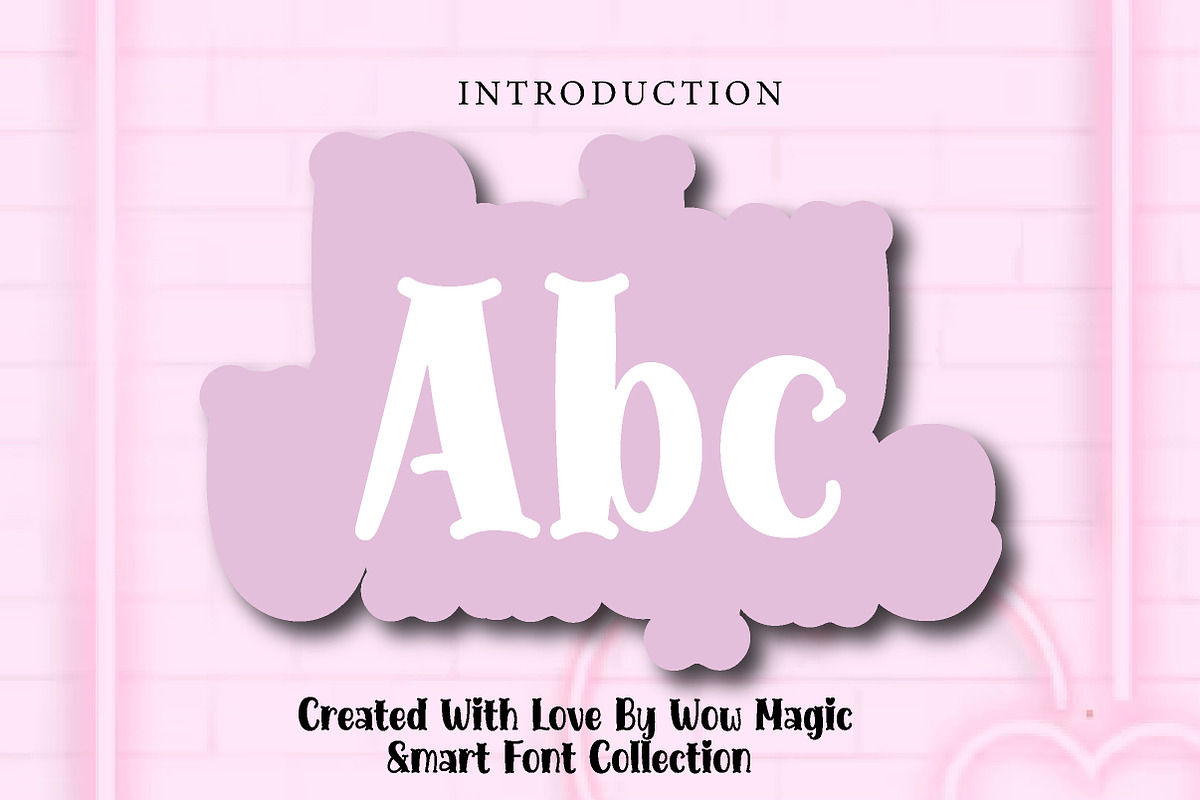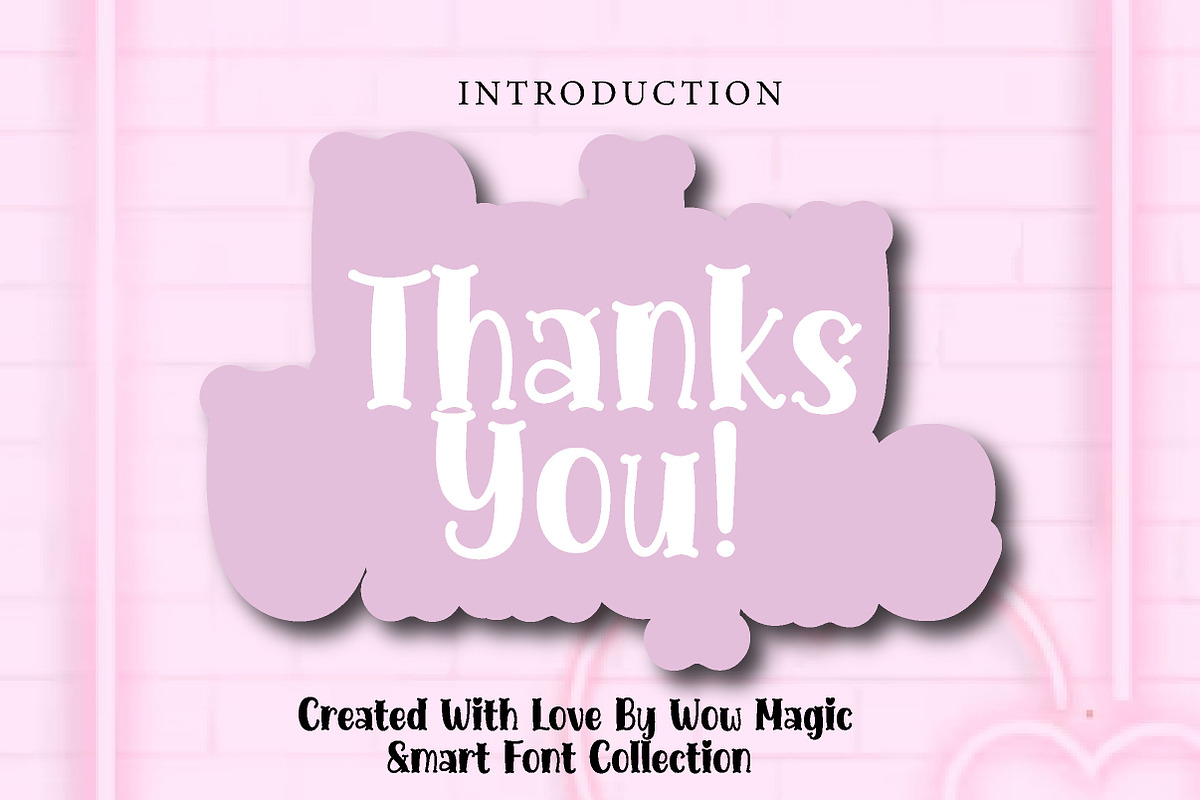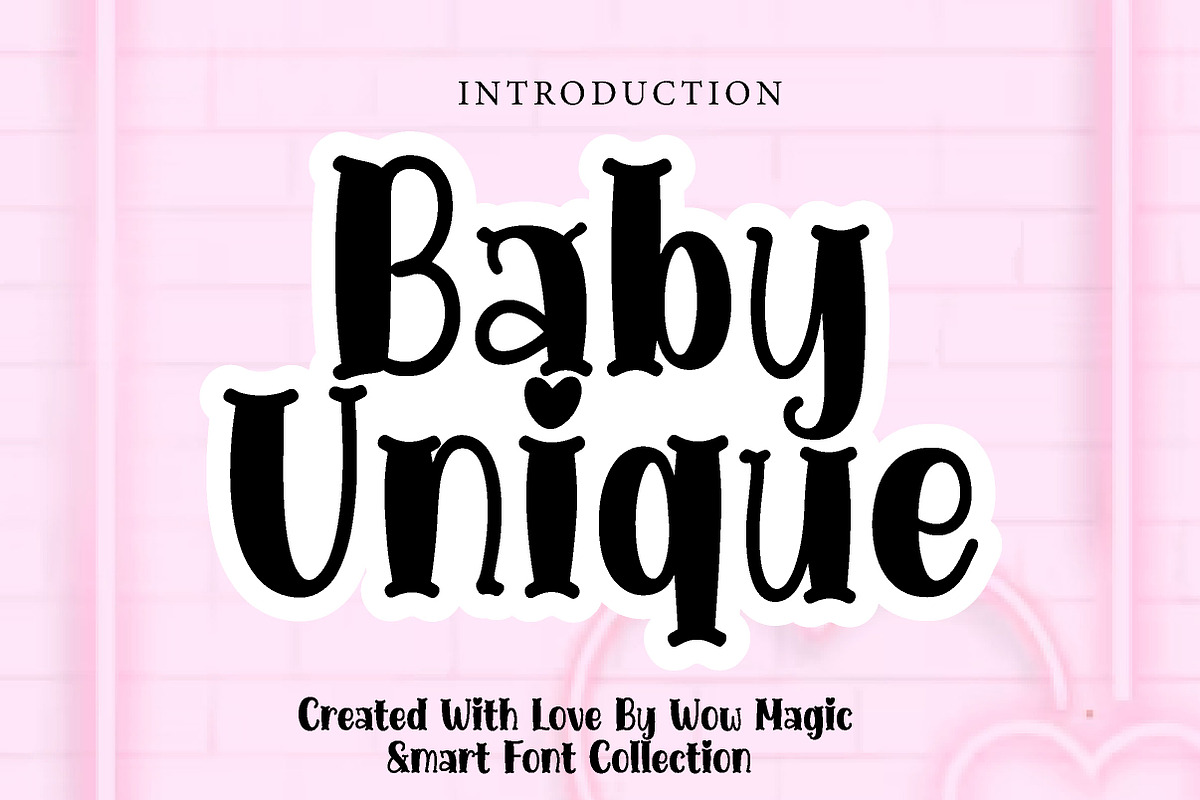
Baby Unique
Baby Unique – Cute Decorative Display Font
Baby Unique is a cute, whimsical, and decorative display font, perfect for baby-themed designs, nursery projects, invitations, branding, packaging, and cheerful creative work.
Baby Unique is a sweet and playful decorative display font designed to bring charm, joy, and personality into your designs. With its soft curves, whimsical serif details, and handcrafted character, this font creates a lovely and eye-catching look that feels both cute and unique.
Its adorable and expressive style makes Baby Unique perfect for projects that need a warm and imaginative touch. Whether you are designing baby shower invitations, nursery decor, kids branding, product packaging, greeting cards, posters, social media graphics, or playful logo concepts, this font helps your typography stand out in a memorable and heartwarming way.
The decorative letterforms and charming heart accent add extra personality, making every word feel more special and creative. Suitable for both print and digital use, Baby Unique is a wonderful choice for designers who want a font that feels sweet, friendly, and full of character.
Perfect For Baby shower invitations Nursery and baby-themed designs Kids branding Product packaging Greeting cards Social media graphics Posters and flyers Stickers and labels Cute logos and headlines Cheerful typography layouts Font Features Uppercase letters Lowercase letters Numbers & punctuation Cute decorative style Whimsical handcrafted details Friendly and cheerful look Perfect for display use